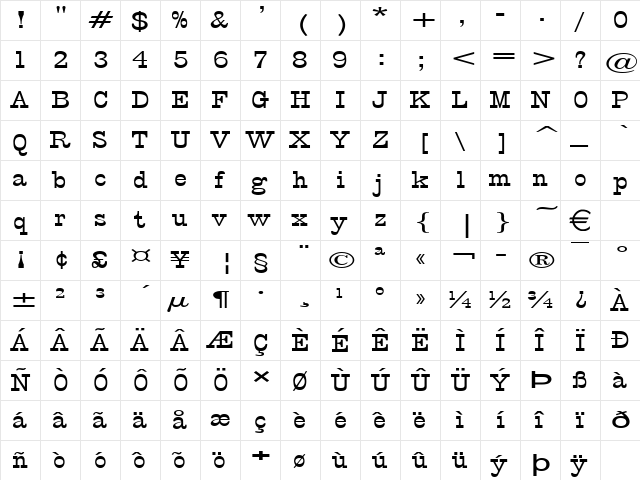
CircusWide Normal Font Preview
CircusWide Normal
Design Context for CircusWide Typeface
CircusWide is a composed and adaptable typeface that performs quietly and consistently across a wide range of design contexts.